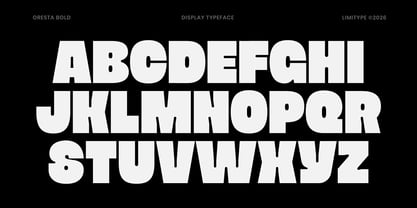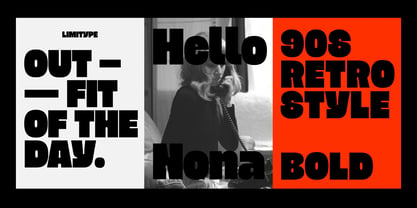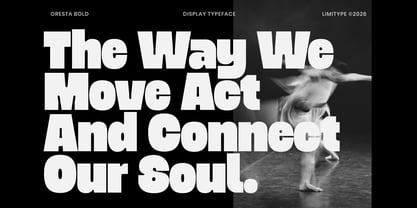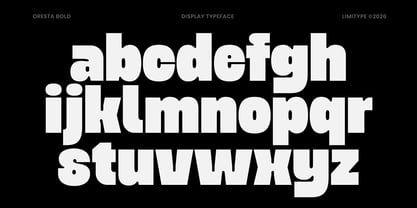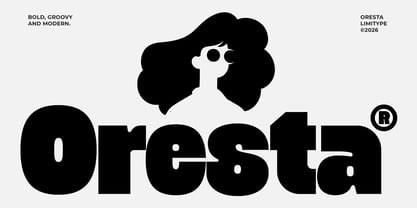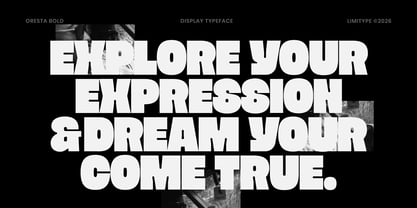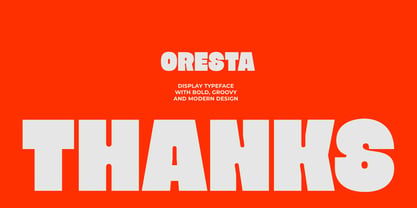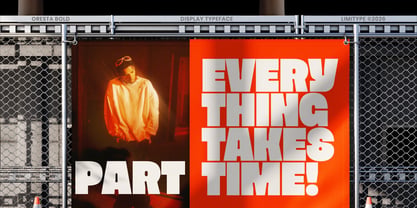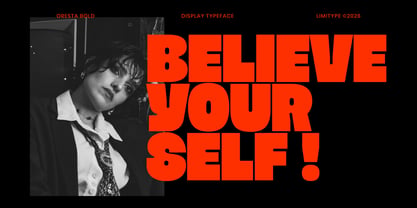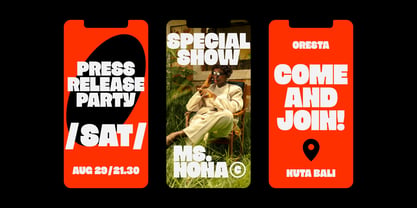
Oresta
von limitype
Die Schriftfamilie Oresta wurde von Muhammad Muammar, Furqan Sudirman entworfen und von limitype veröffentlicht. Oresta enthält 1 Stile. Mehr über diese Familie
Oresta is a bold groovy display font featuring thick and modern letterforms, compact proportions, and distinctive cut in details. Its heavy shapes, characteristic curves, and unique internal cuts create a strong retro personality while maintaining a modern and eye catching appearance with a striking visual impact. Designed to command attention, Oresta is perfect for bold headlines, posters, logos, branding, packaging, editorial designs, and expressive visual identities.
Designer: Muhammad Muammar, Furqan Sudirman
Foundry: limitype